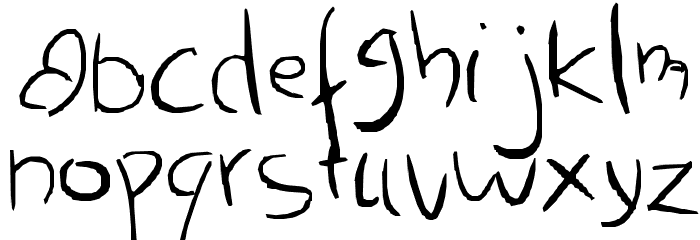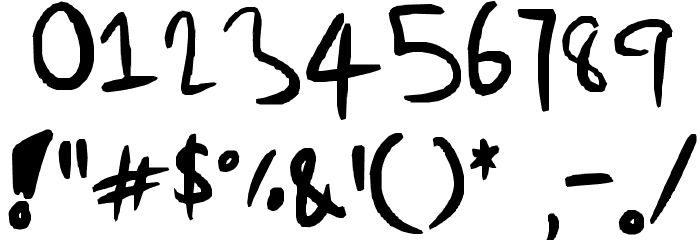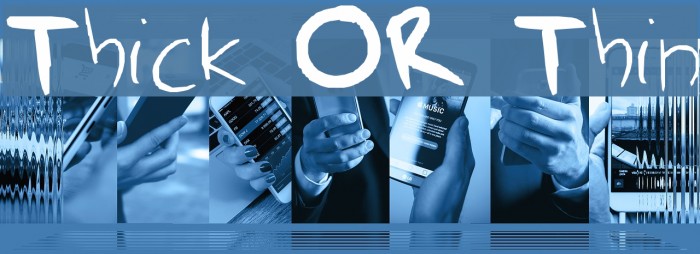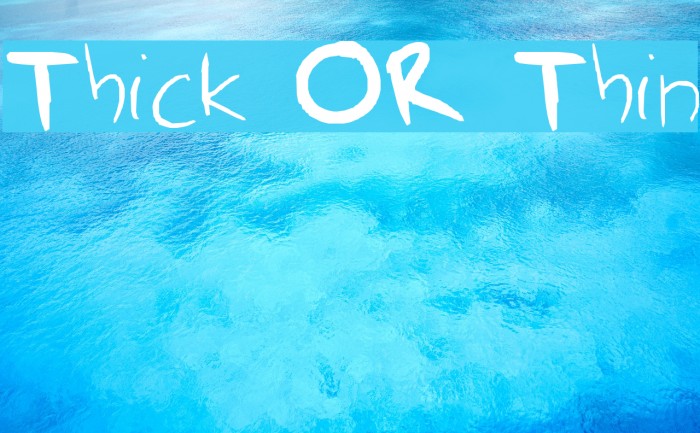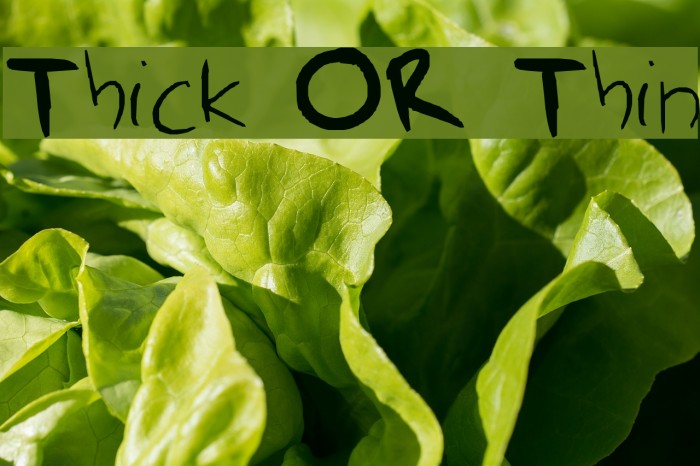
Thick OR Thin Font
This font features a playful and casual handwritten style, characterized by its uneven stroke thickness and slightly irregular letterforms. The uppercase letters are bold and prominent, while the lowercase letters exhibit a more relaxed and flowing appearance. The numbers maintain a consistent style with the letters, adding to the overall cohesive look. Special characters are included, matching the informal and dynamic aesthetic. This font's unique charm lies in its imperfect lines and varied stroke widths, creating a lively and approachable feel.
A playful, casual handwritten font with uneven strokes and irregular letterforms.
- Proposed Projects: Ideal for creative projects such as greeting cards, children's books, informal invitations, and artistic posters.
- Overall Style: Casual, Playful
- Use Case: Headlines, Logos, Informal Text